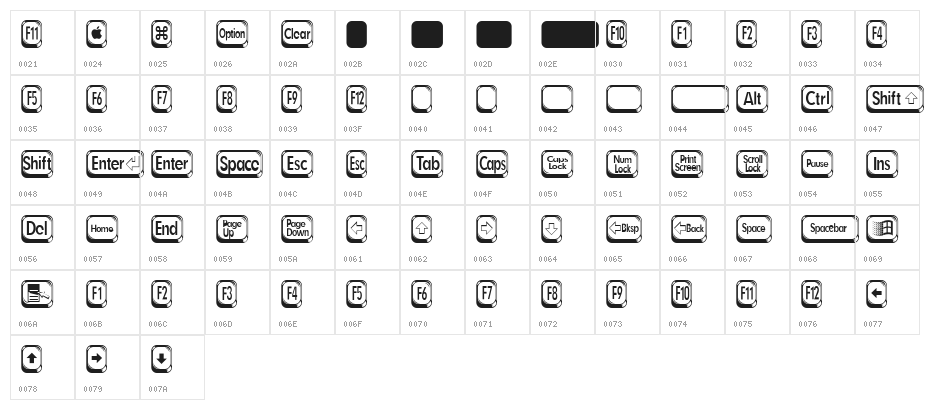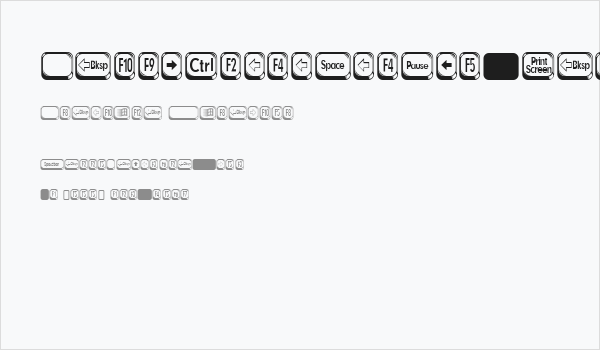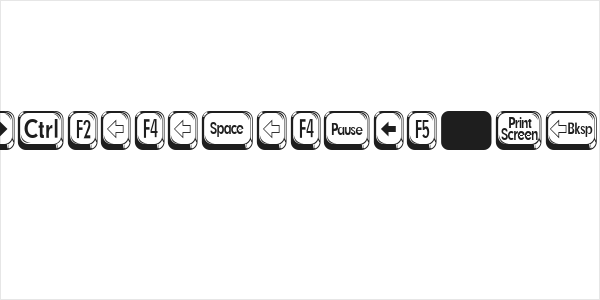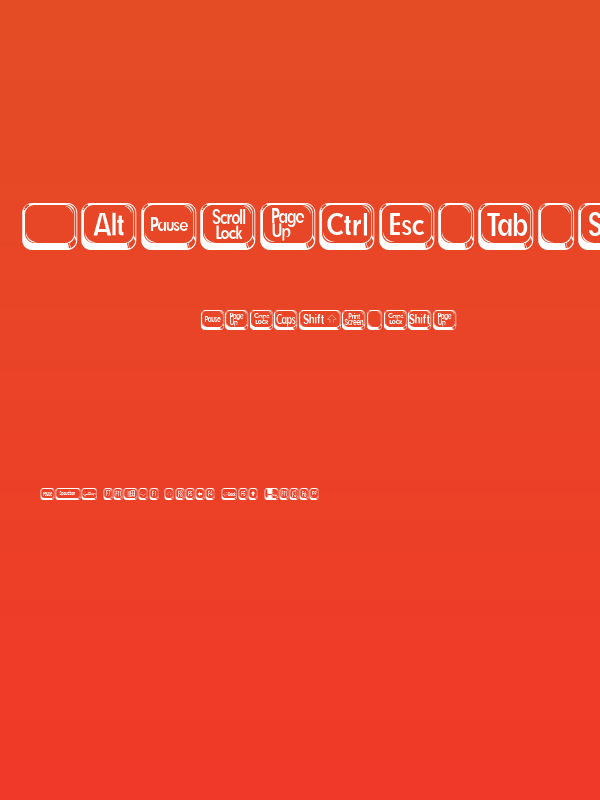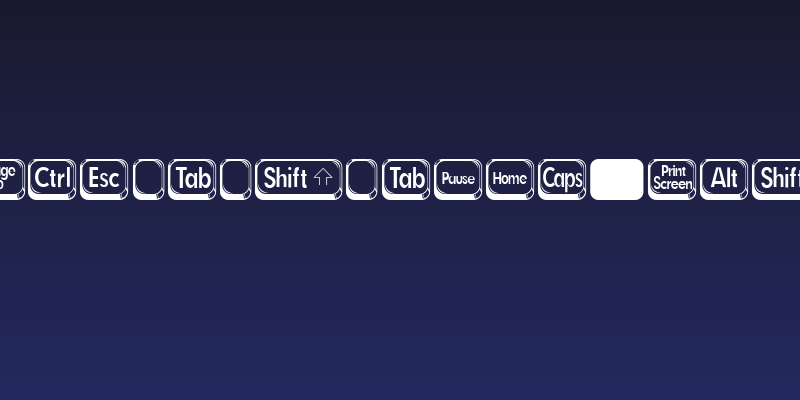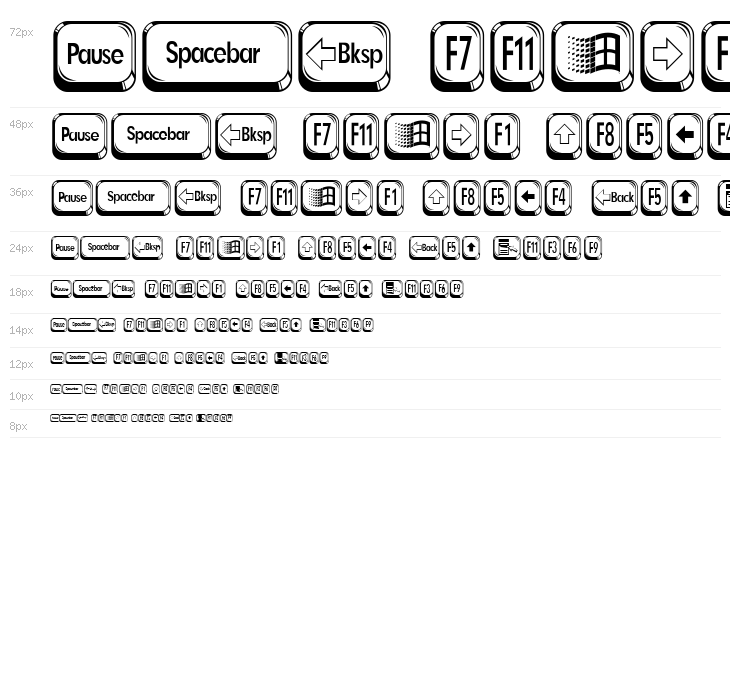
BetsyFlanaganTwo-Regular Font
BetsyFlanaganTwo-Regular Description
This font is designed to mimic the appearance of keys on a keyboard, featuring a three-dimensional, beveled style that gives each character a distinct, tactile look. The characters are enclosed in rounded rectangles, resembling keycaps, with a shadow effect that enhances the 3D illusion. The font includes a variety of symbols and function keys, making it ideal for projects that require a tech or retro computing aesthetic. The overall design is bold and clear, ensuring readability while maintaining a playful and nostalgic vibe.
| Overall Style | Retro, Decorative |
| Use Case | Logos, Posters, Educational Materials |
| Proposed Projects | Ideal for tech-themed designs, retro computing projects, educational materials, or any creative work that requires a playful, nostalgic touch. |